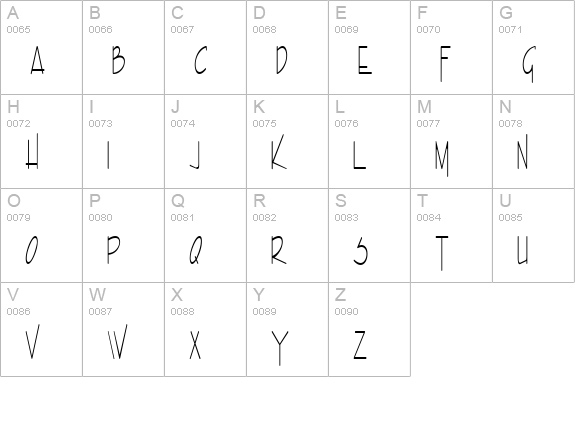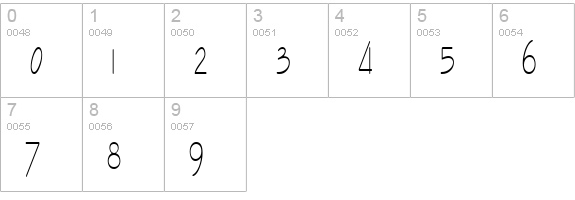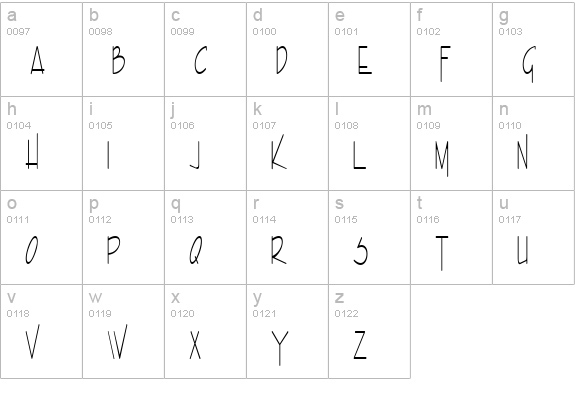
Enview Xtra Light Normal is a refined, elegant variant in the Enview typeface family \xE2\x80\x94 well suited to elegant body text, refined sub-headings, and luxury branding.
Enview Xtra Light Normal font is a modern and sleek typeface that exudes elegance and sophistication. Its clean lines and subtle curves make it perfect for a wide range of design projects, from branding to editorial design. The delicate and refined appearance of this font adds a touch of sophistication to any project. Best of all, Enview Xtra Light Normal font is available for free download at FontsMarket.com. This means you can easily access this stylish font and incorporate it into your design projects without any cost. Don't miss out on the opportunity to enhance your designs with this beautiful and versatile font that is just a click away.